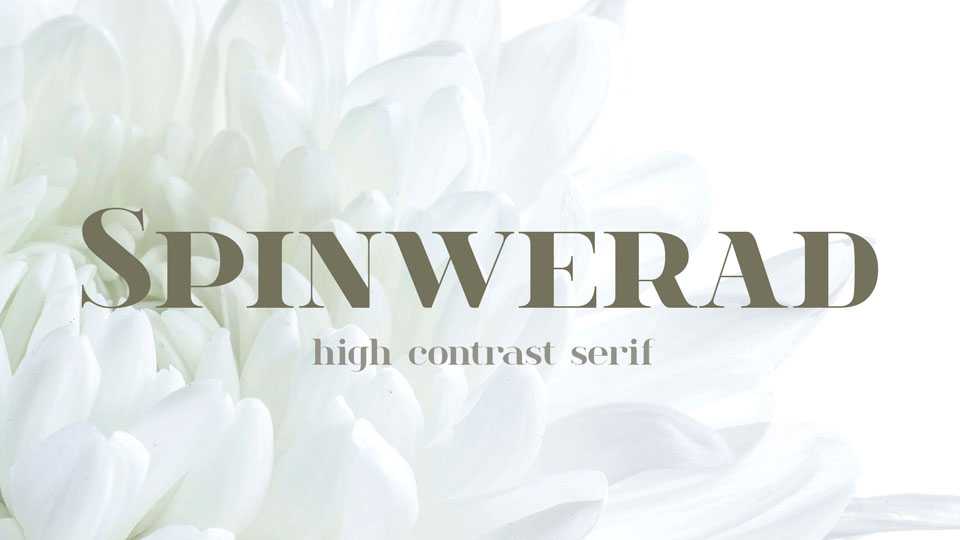
Download Spinwerad typeface, a fancy high contrast serif font family in two styles. Spinwerad is suitable for headlines, logos and branding, wedding decoration, fashion and apparel and other beautiful projects.
Designer: Grzegorz Luk